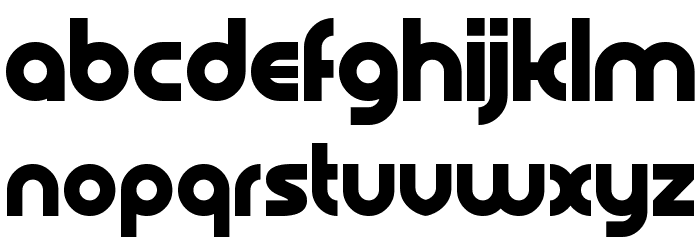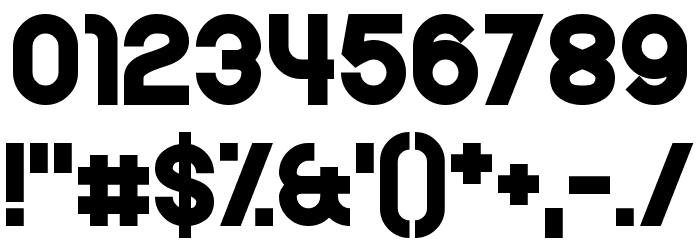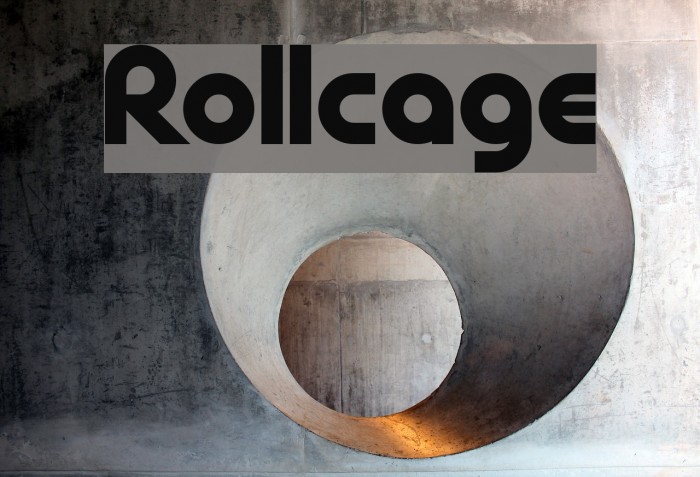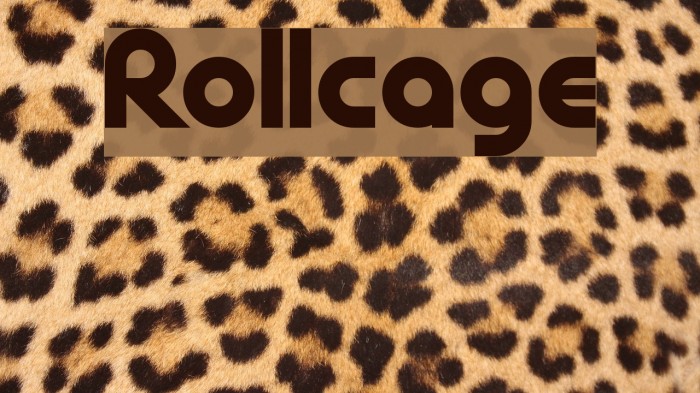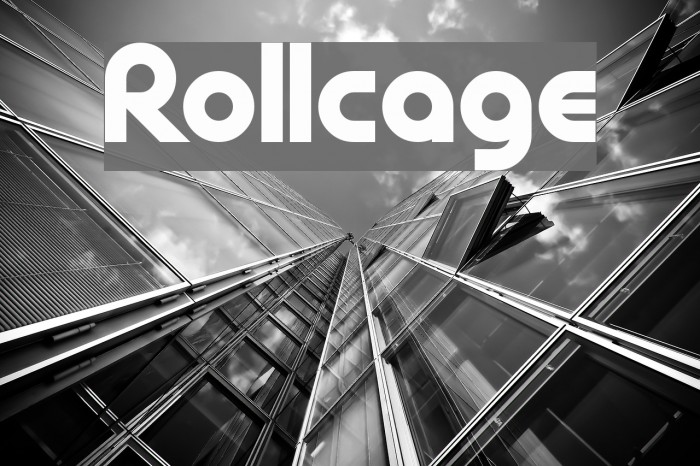
Rollcage Font
This font features a bold, geometric style with a modern and futuristic appeal. The characters are constructed with clean lines and a uniform thickness, creating a strong visual impact. The uppercase letters have a distinctive angular design, while the lowercase letters maintain a rounded, cohesive look. The numerals and special characters follow the same geometric principles, ensuring consistency across all glyphs. This font's design is both functional and stylish, making it suitable for a variety of applications where a contemporary and assertive typeface is desired.
- Proposed Projects: Ideal for branding, advertising, posters, and digital interfaces where a strong, modern presence is needed.